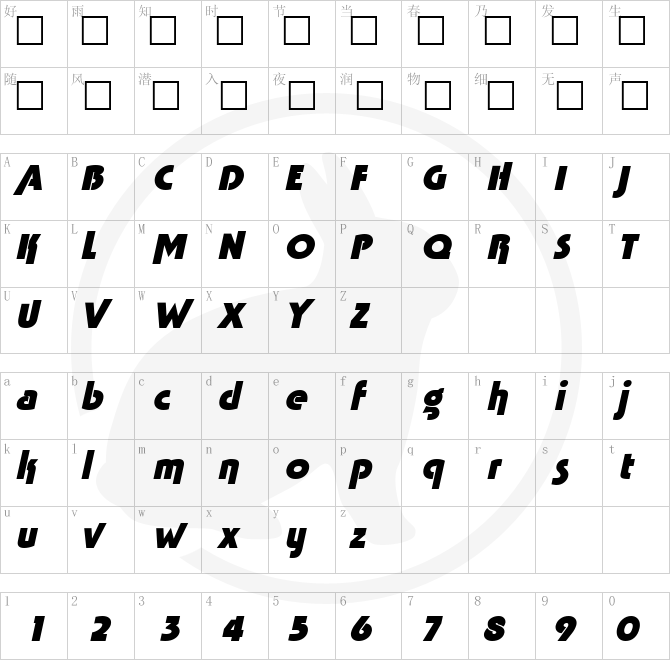
- Font Name:TabathaHeavy
- Subfamily:Weatherly Systems, Inc. TabathaHeavy Italic
TabathaHeavy-Italic-copy-1-.ttf is a very beautiful artistic font, TabathaHeavy-Italic-copy-1-.ttf is widely used in the design and printing of various books and pictures,TabathaHeavy-Italic-copy-1-.ttf has a strong visual impact,TabathaHeavy-Italic-copy-1-.ttf is a commonly used font in newspapers, magazines and books, and is used in posters, e-commerce Poster design, store design, logo design, font design and other fields.TabathaHeavy-Italic-copy-1-.